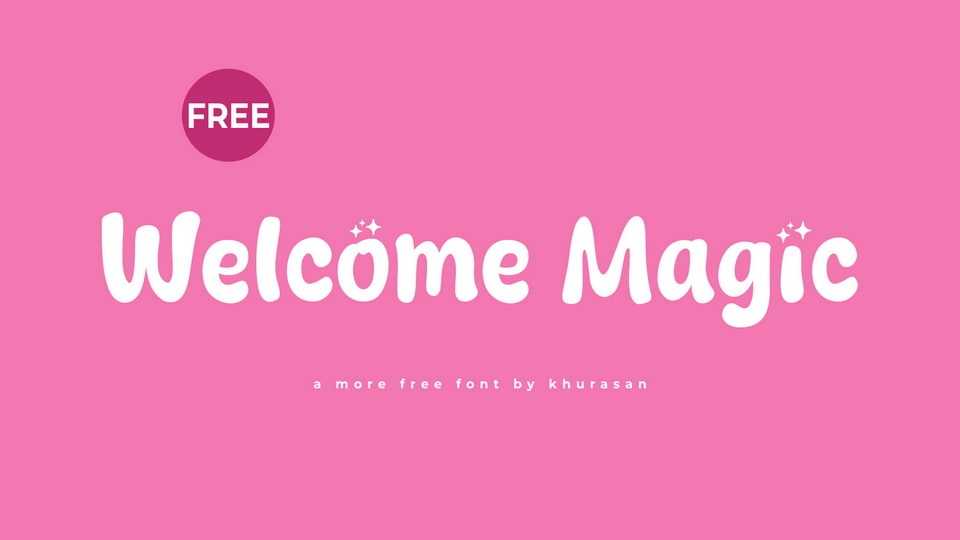
Download Welcome Magic font, a delightful hand-drawn cartoon typeface that sparkles with charm and magic. With its playful style and whimsical details, this font brings a touch of enchantment to your designs